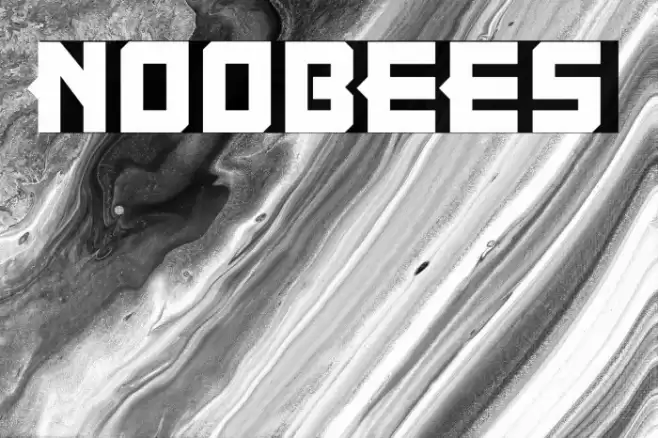
Noobees Font
Noobees Description
This font features a bold and geometric design with a strong, angular structure. The characters are constructed with sharp edges and a uniform thickness, giving it a modern and futuristic appearance. The uppercase letters are particularly striking, with a blocky and robust form that commands attention. The overall design is consistent across all characters, maintaining a cohesive look that is both distinctive and versatile. The font's boldness and unique style make it suitable for projects that require a strong visual impact.
A bold, geometric font with sharp, angular characters from Uncategorized fonts.
- Proposed Projects: Ideal for video game titles, tech branding, posters, and futuristic designs.